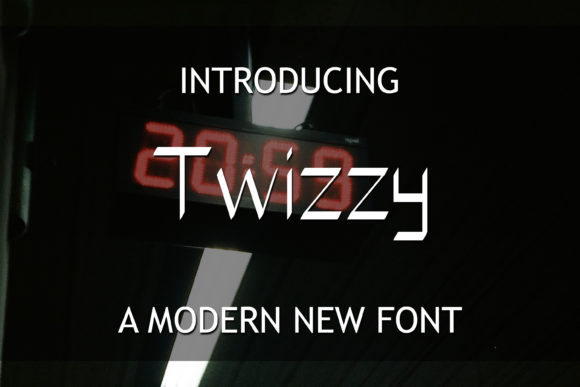
Introducing Twizzy Font: The Epitome of Modern Elegance for Your Creative Endeavors
In the realm of digital design, fonts hold the power to transform ordinary words into captivating expressions of art. Among the myriad of font families, Twizzy Font stands out as a beacon of innovation and sophistication, ready to elevate your creative projects to new heights.
Twizzy Font: A Journey Through Modern Aesthetics
Twizzy Font belongs to the distinguished category of display fonts, renowned for their bold and visually striking presence. Its squared letters exude an aura of contemporary elegance, perfectly suited for a diverse range of design applications.
From the sleek lines of web design to the polished professionalism of business cards, Twizzy Font's versatility knows no bounds. Its modern, futuristic touch breathes life into any project, leaving a lasting impression on your audience.
The Essence of Twizzy Font: A Symphony of Creative Possibilities
Envision the allure of a wedding monogram adorned with Twizzy Font's graceful curves. The intricate details of each letter intertwine like a delicate dance, capturing the essence of love and commitment.
Picture the impact of a logo designed with Twizzy Font's bold strokes, commanding attention and leaving an unforgettable mark in the minds of potential customers.
Step into the realm of social media, where Twizzy Font's captivating presence elevates your posts and stories to new levels of engagement. Its distinct character adds a touch of exclusivity, making your content stand out from the crowd.
A Font for Every Occasion: The Adaptability of Twizzy
Twizzy Font's adaptability extends far beyond the confines of traditional design. Its versatility shines through in the world of digital marketing, where it lends its charm to captivating email campaigns and eye-catching advertisements.
Whether you're crafting presentations that demand attention or designing invitations that exude sophistication, Twizzy Font emerges as the perfect companion for your creative endeavors.
Dive into the World of Twizzy Font: A Journey of Inspiration
Let Twizzy Font ignite your imagination and fuel your creative spirit. Its modern aesthetics and boundless versatility empower you to craft designs that resonate with your audience and leave a lasting impression.
Embrace the allure of Twizzy Font today and embark on a journey of creative exploration, transforming your projects into masterpieces of digital art.